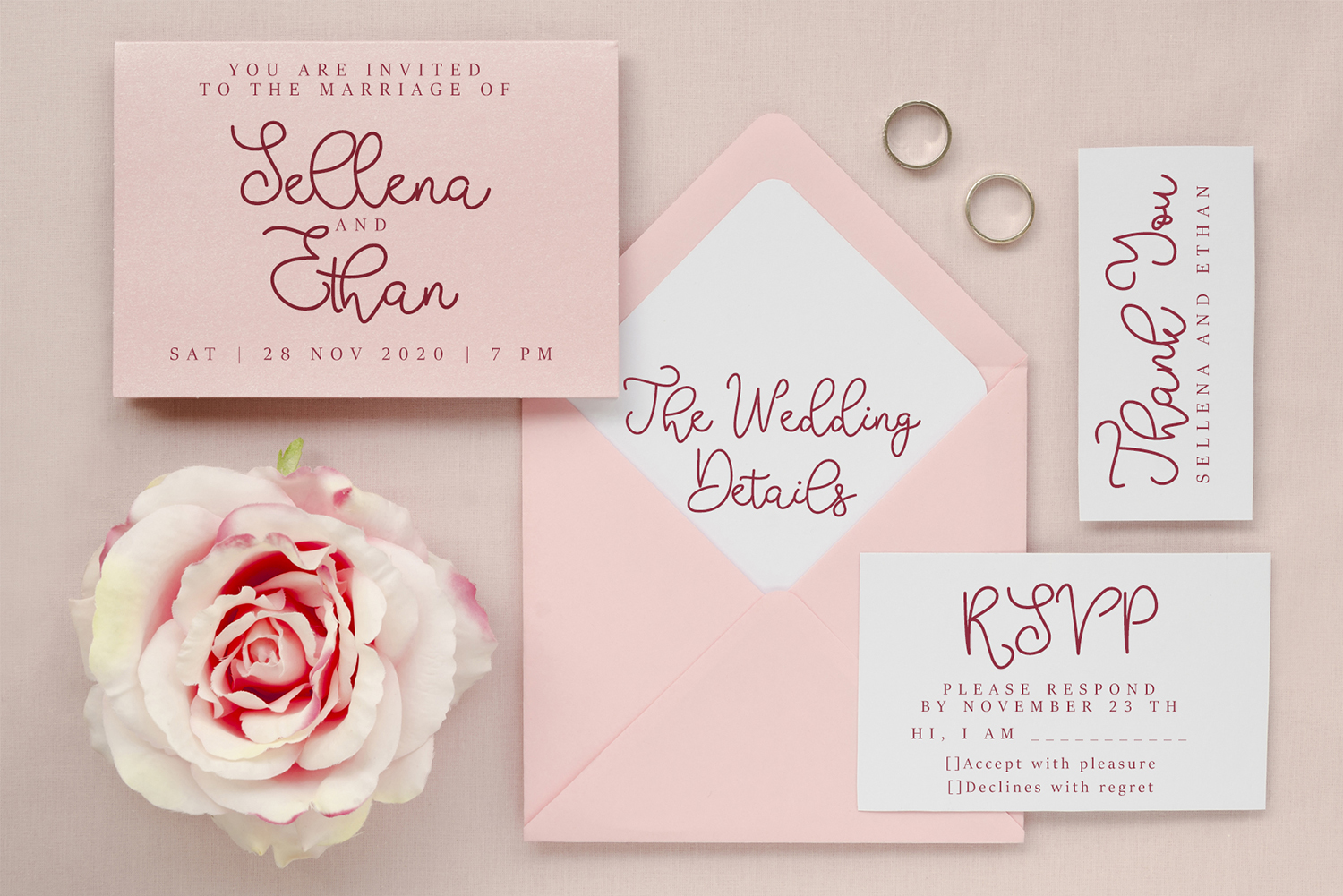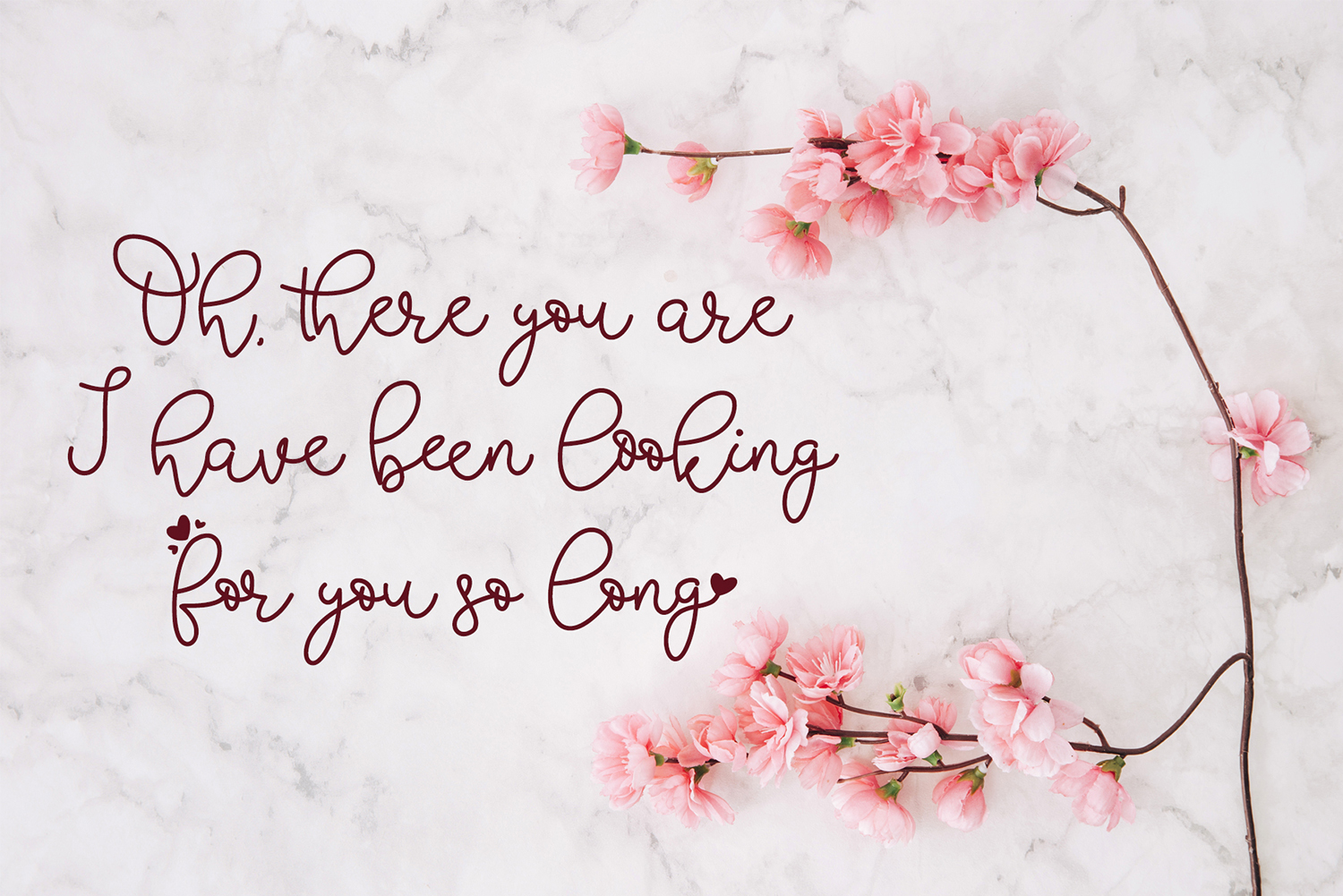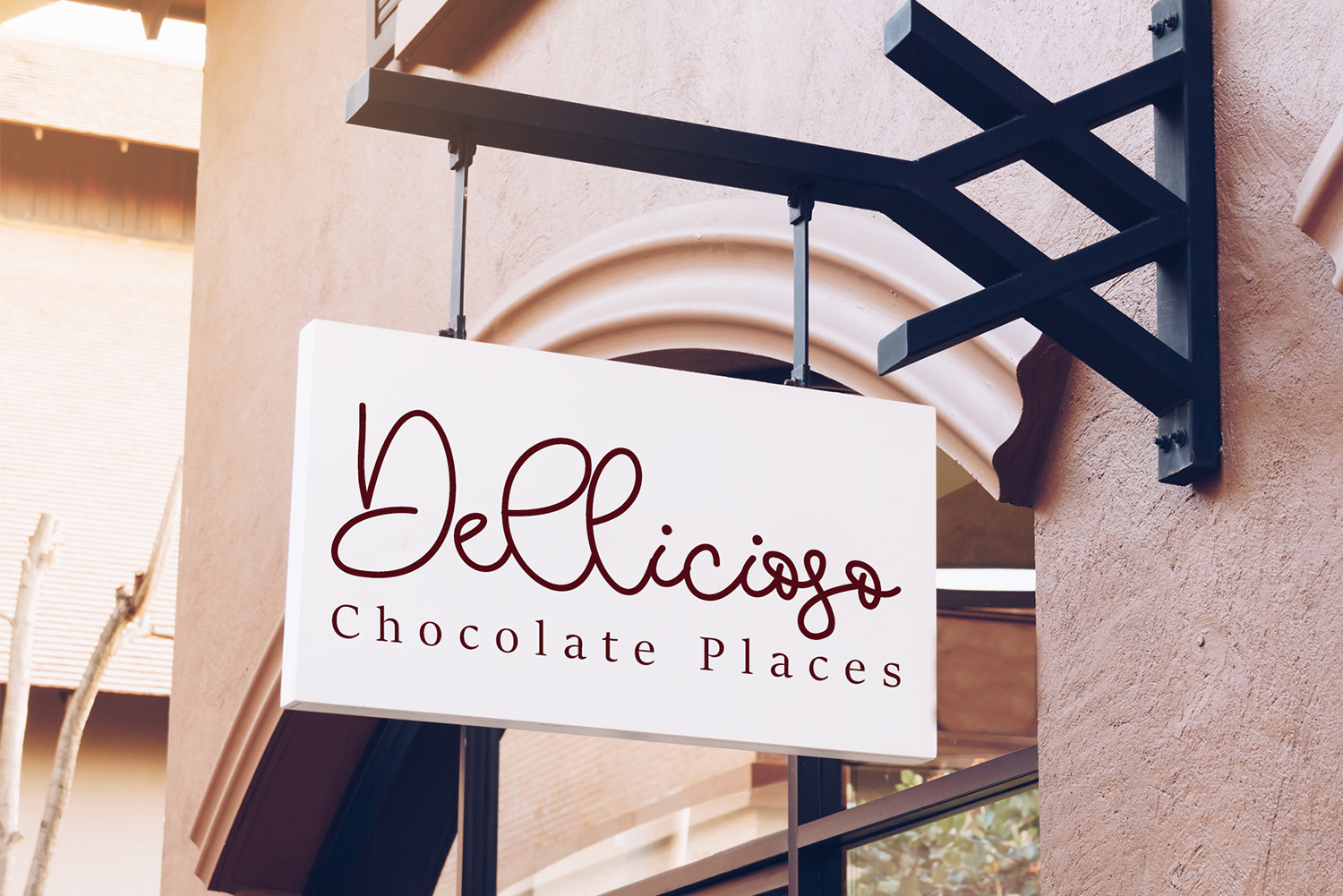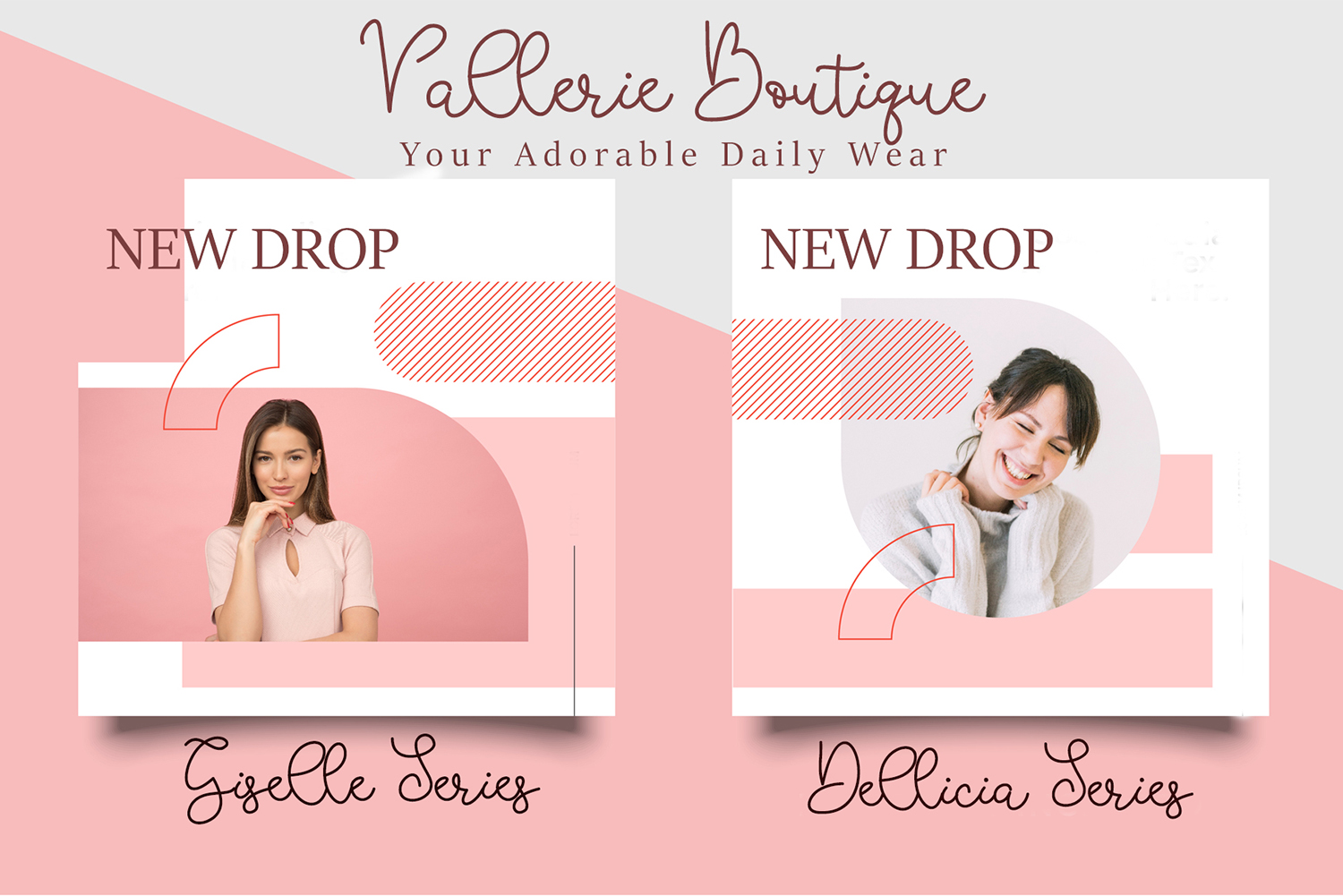
Stellova Free Font
Stellova Free Font is a sweet, cute, and lovely playful font. It is valentine edition with love accent on it. It looks stunning on your branding, quote, greetings card, wedding stationary, etc. This free typeface was designed by talented Tiny Hand Letter. If you like it don’t forget to check out the full version.